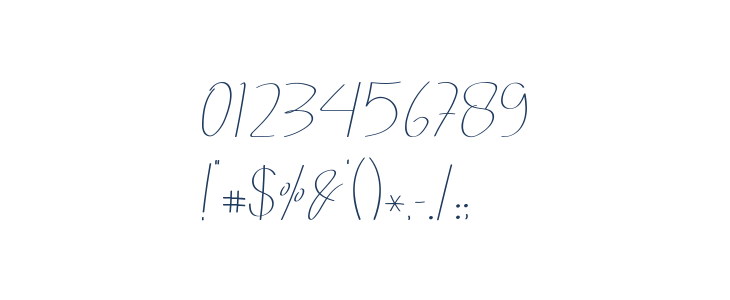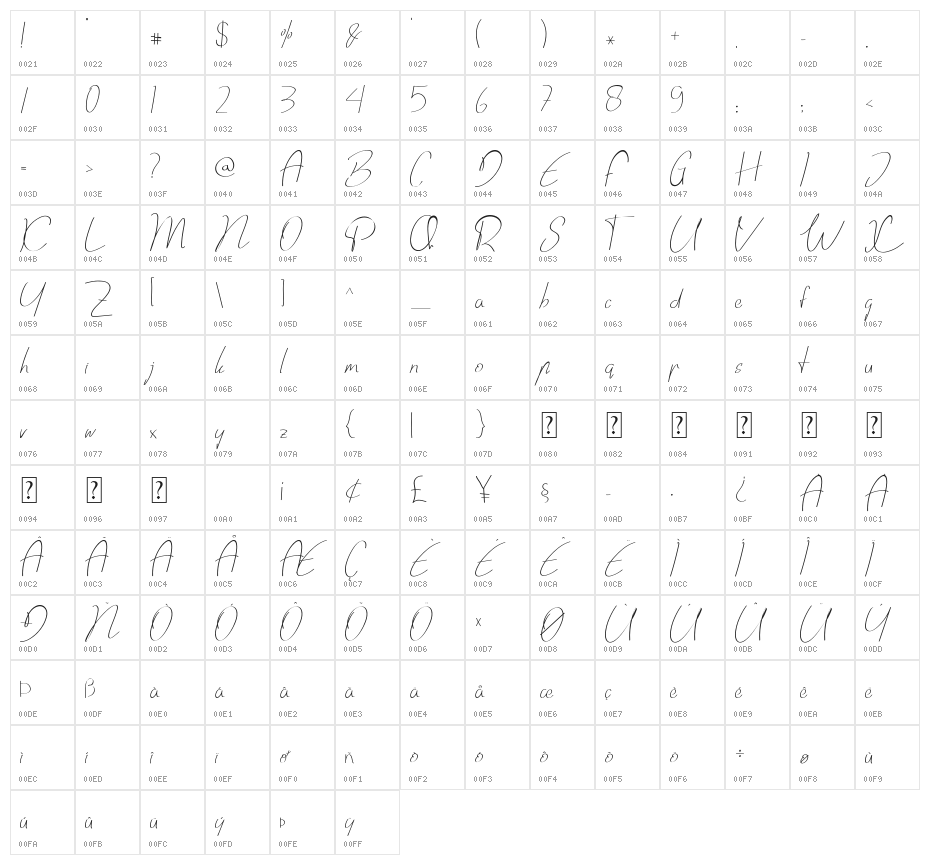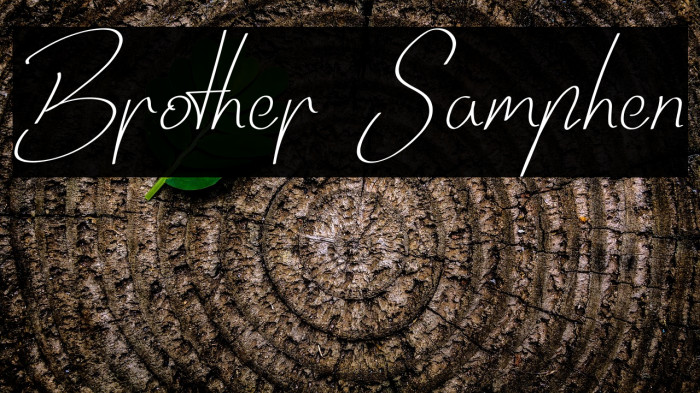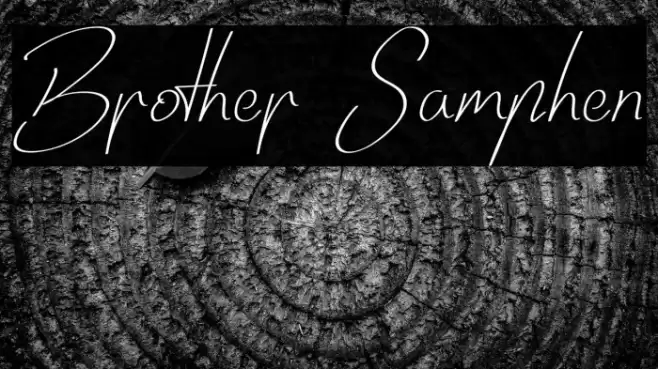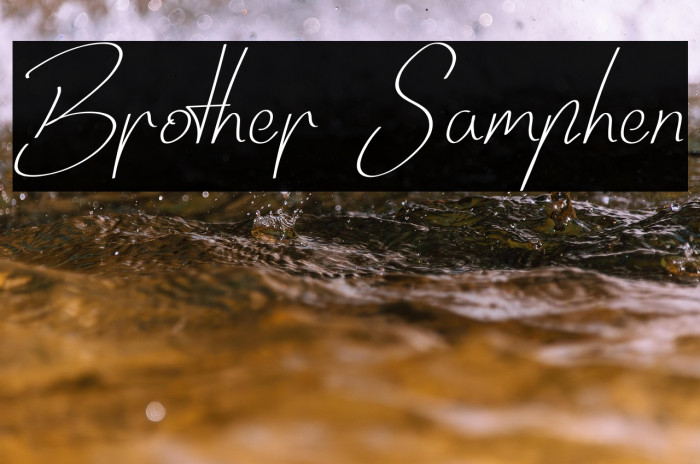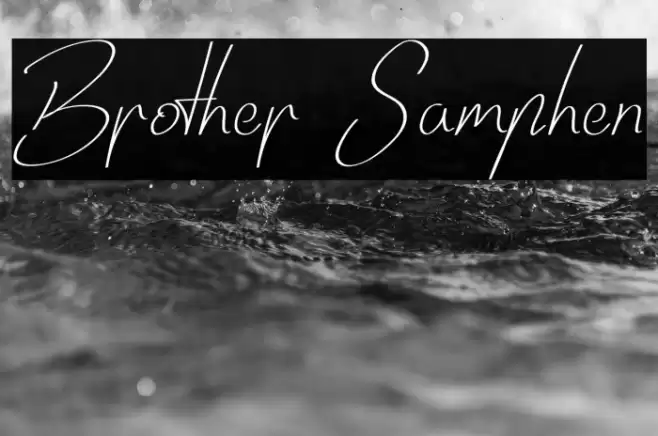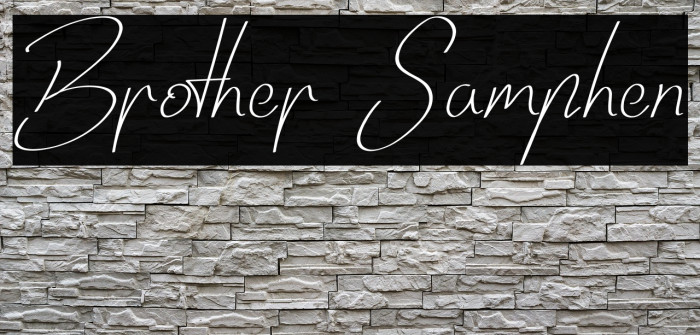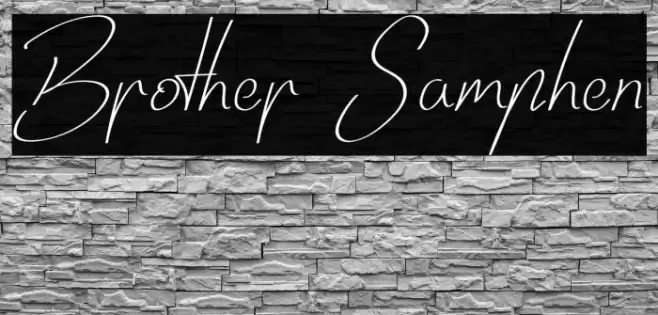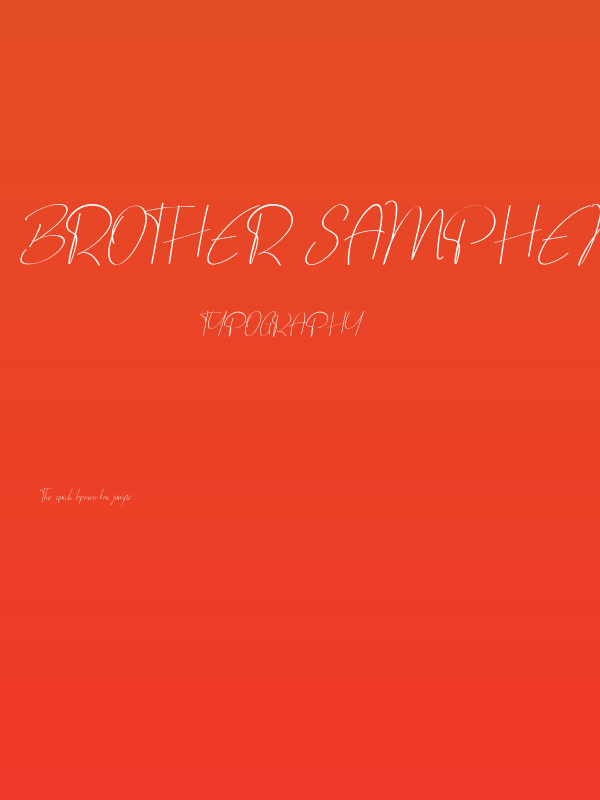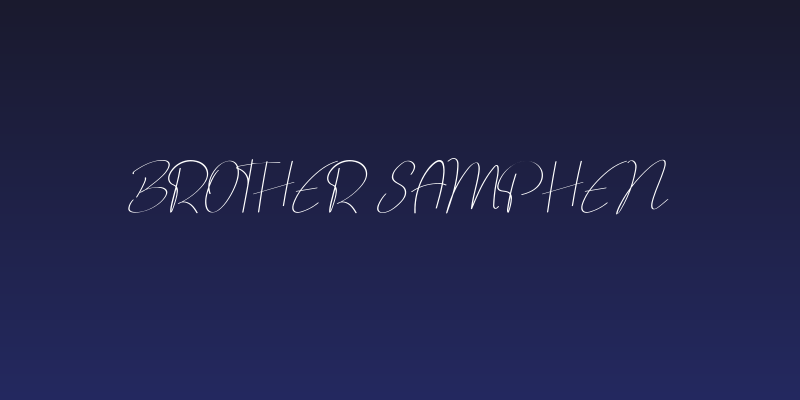
Brother Samphen Font
Brother Samphen Description
This font features a flowing, cursive style with elegant, elongated strokes that give it a sophisticated and artistic appearance. The letters are connected in a fluid manner, reminiscent of traditional calligraphy, yet maintain a modern touch with their sleek and streamlined design. The uppercase letters exhibit a graceful flair, while the lowercase letters are more understated, providing a balanced contrast. The numerals and special characters follow the same cursive theme, ensuring consistency throughout the typeface. This font is ideal for projects that require a personal, handwritten feel, such as invitations, greeting cards, or branding materials.